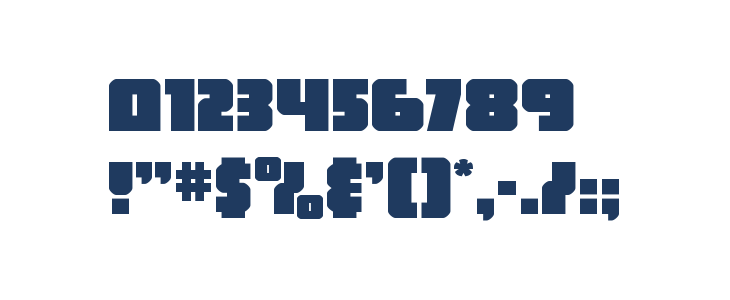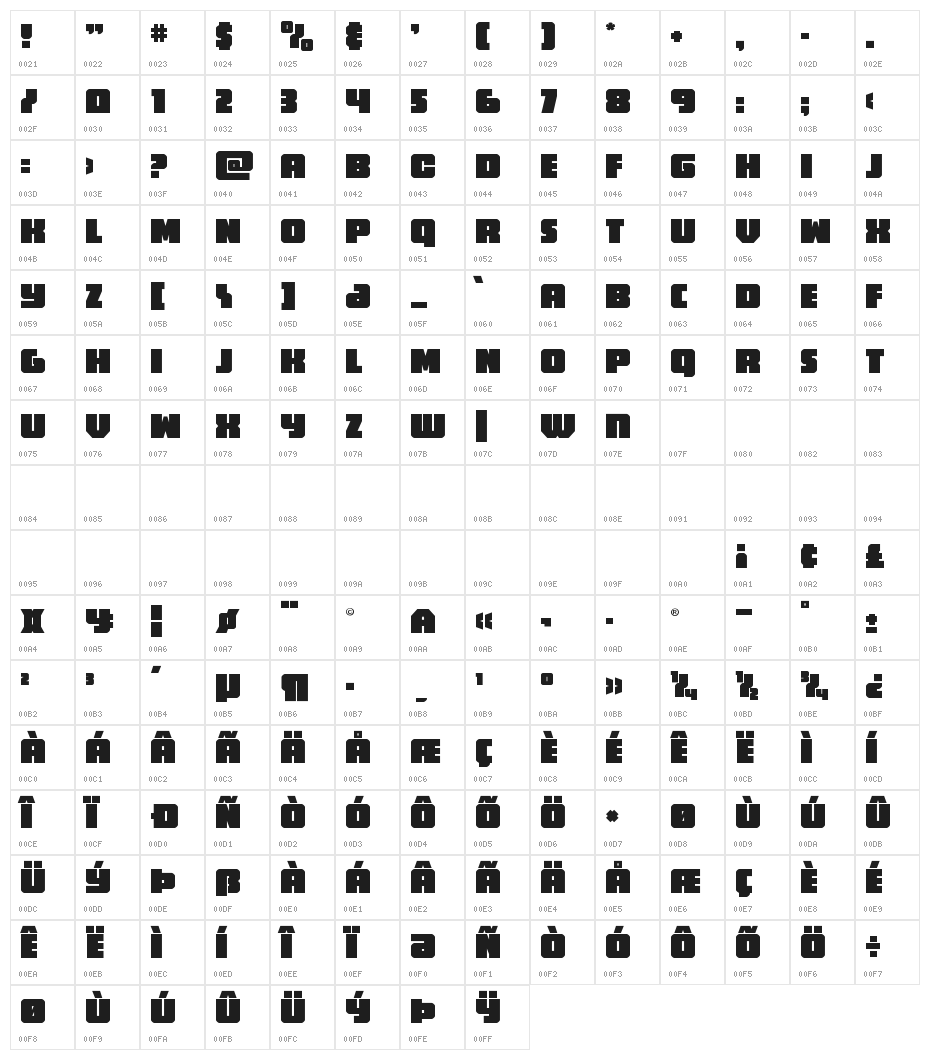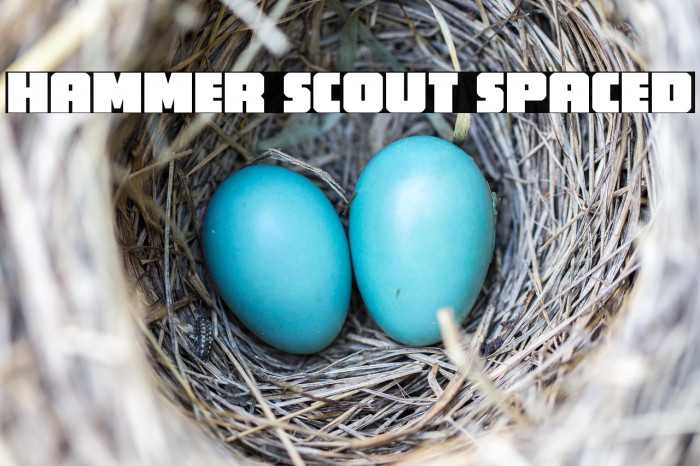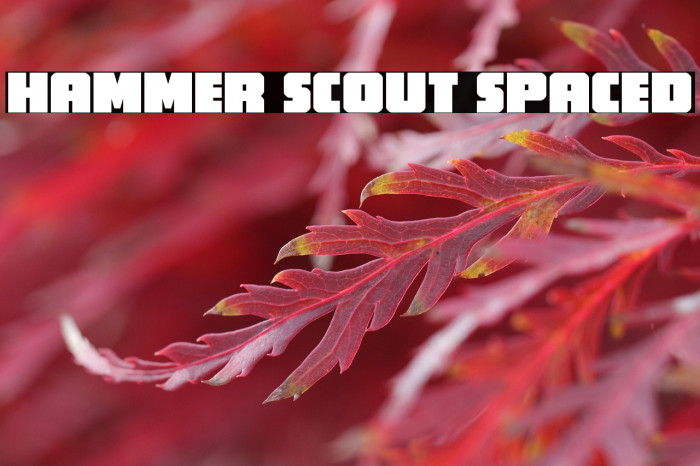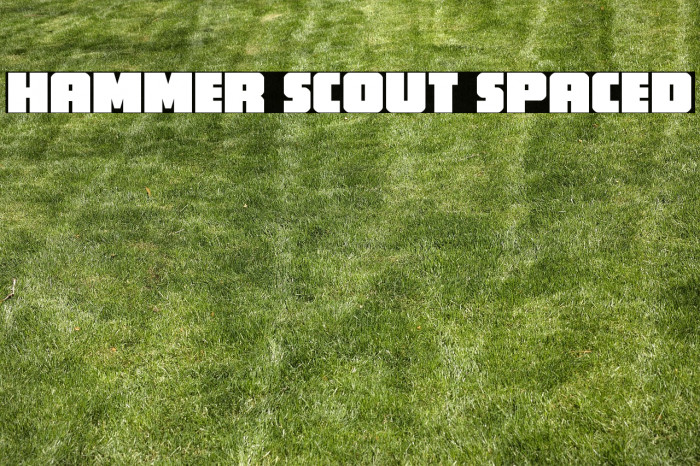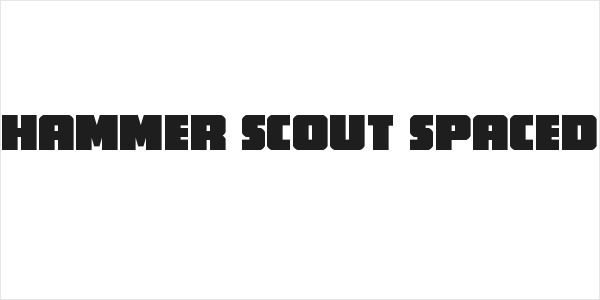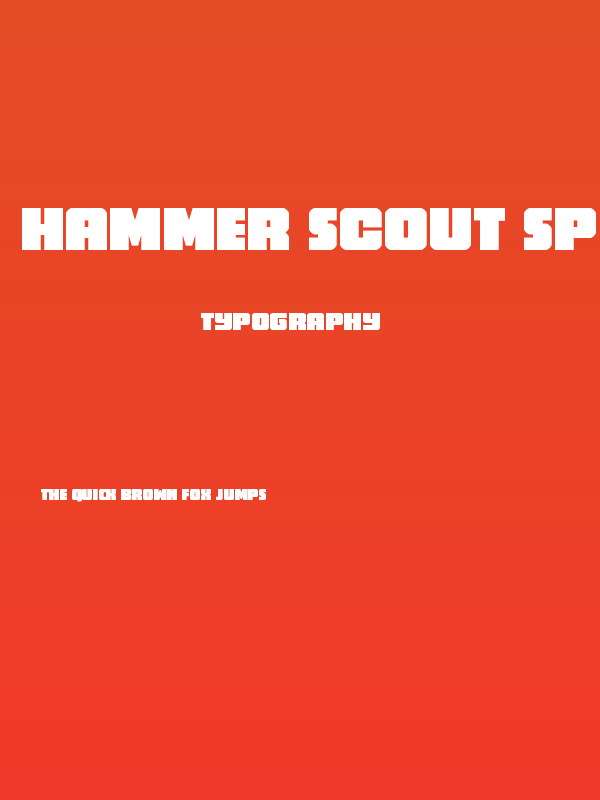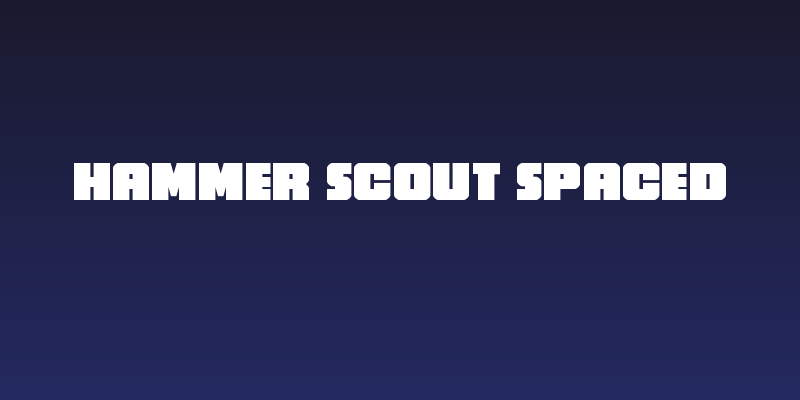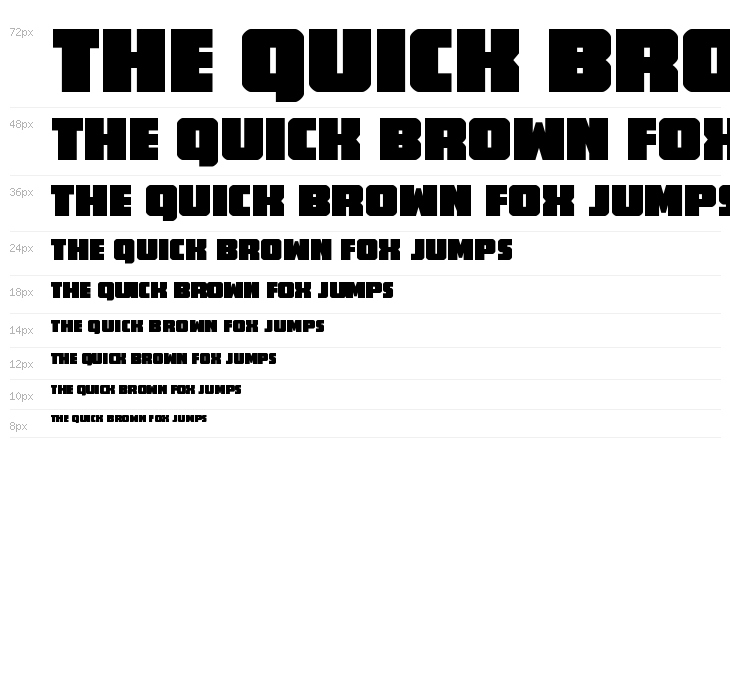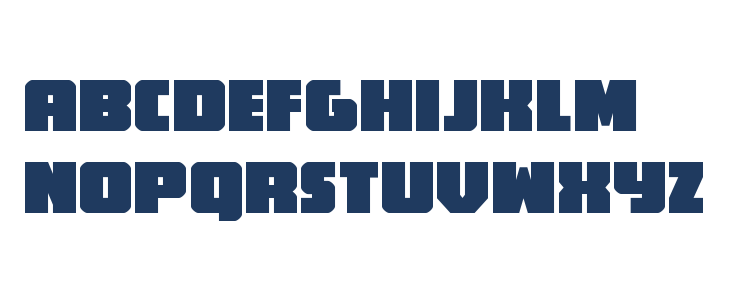
Hammer Scout Spaced Font
Hammer Scout Spaced Description
This font features a bold, geometric design with a strong presence. The characters are blocky and robust, with a uniform thickness that conveys a sense of stability and strength. The edges are sharp and angular, giving it a modern and industrial feel. The uppercase and lowercase letters maintain a consistent style, ensuring readability while adding a distinctive flair. The numerals and special characters follow the same design principles, making them easily recognizable and cohesive with the overall aesthetic. This font is ideal for projects that require a bold statement, such as posters, headlines, or branding materials.
| Proposed Projects | Ideal for posters, headlines, branding, and any project requiring a strong visual impact. |